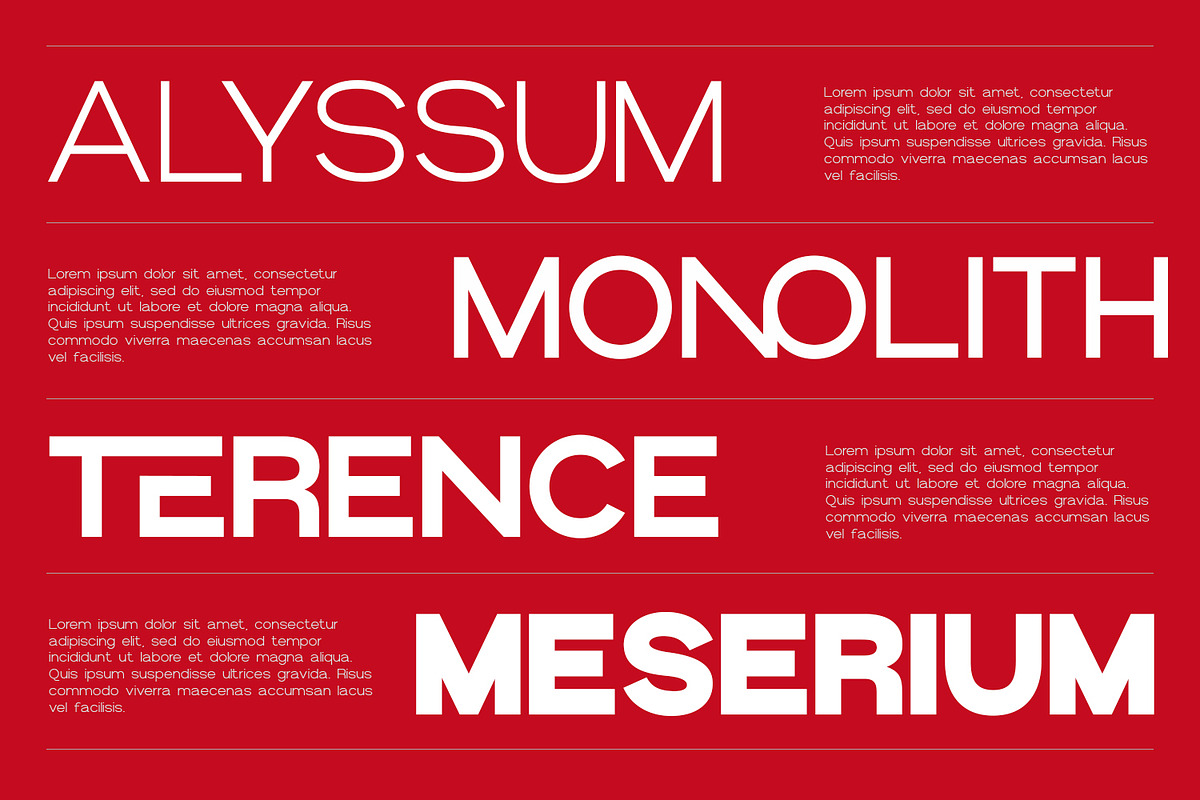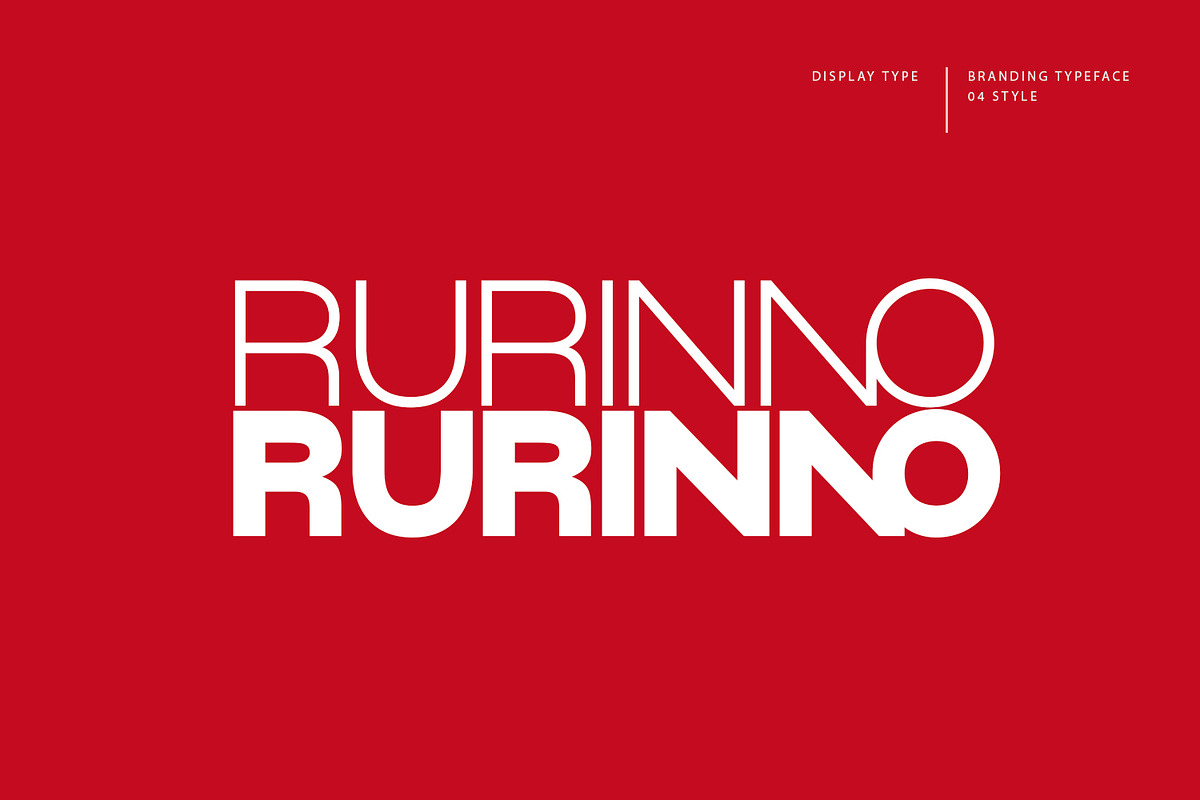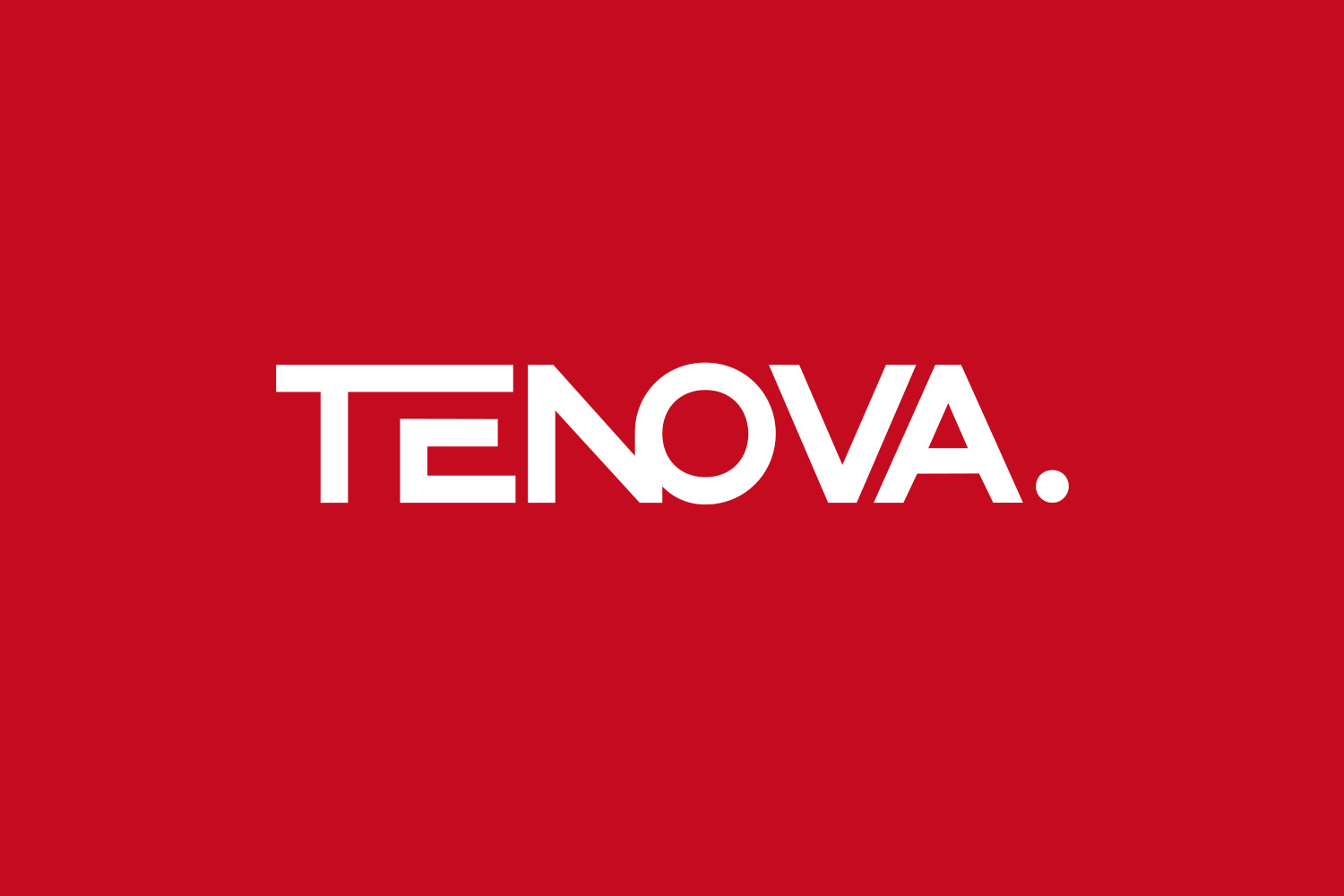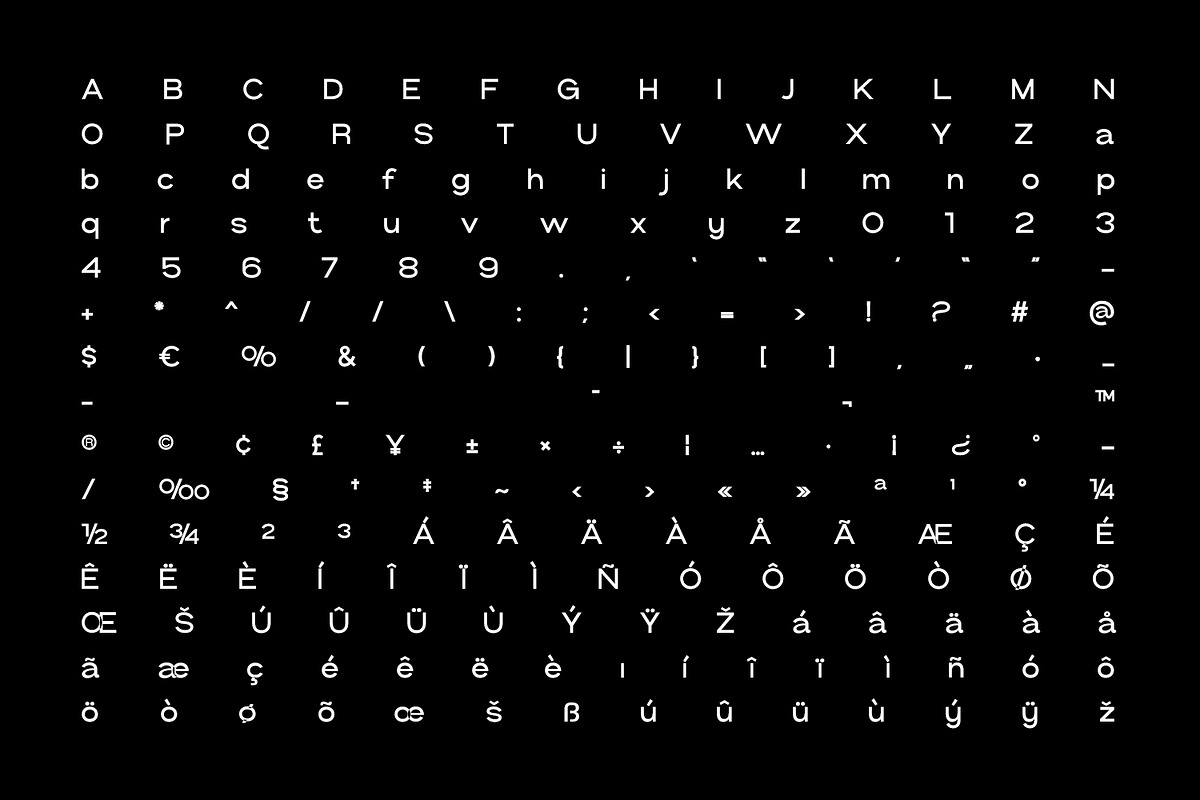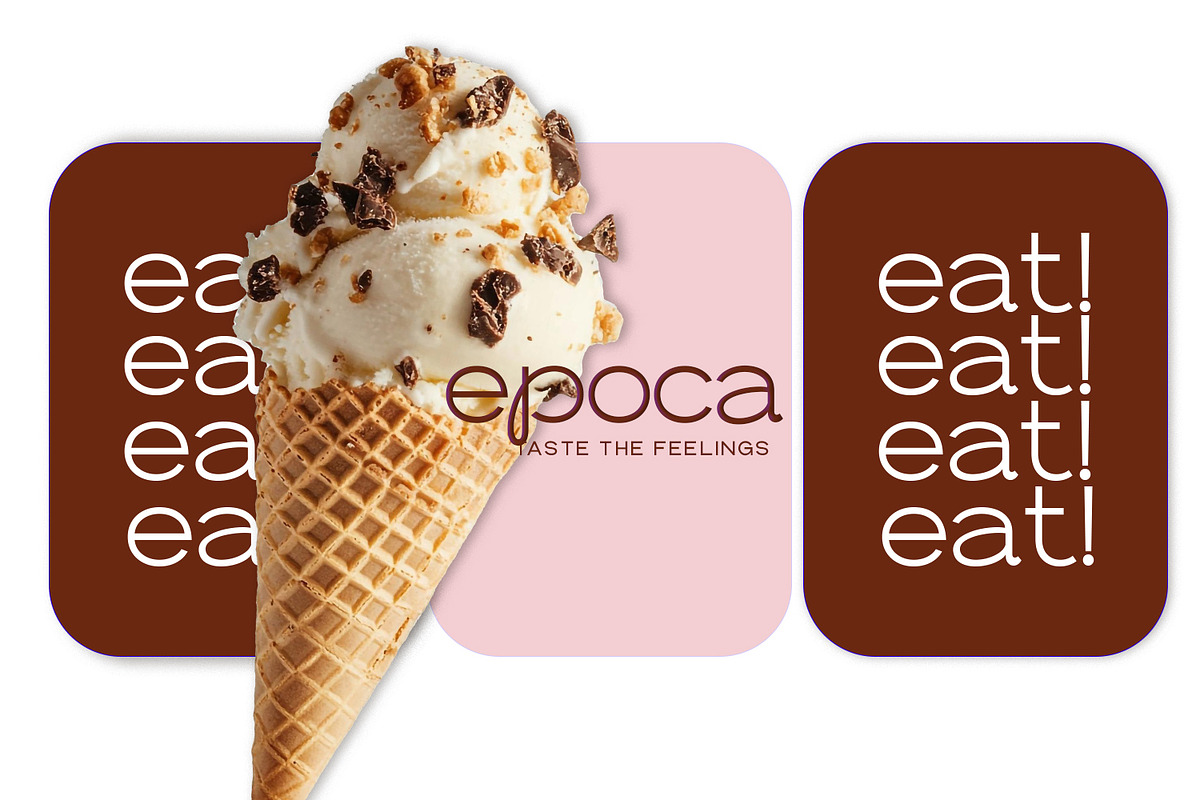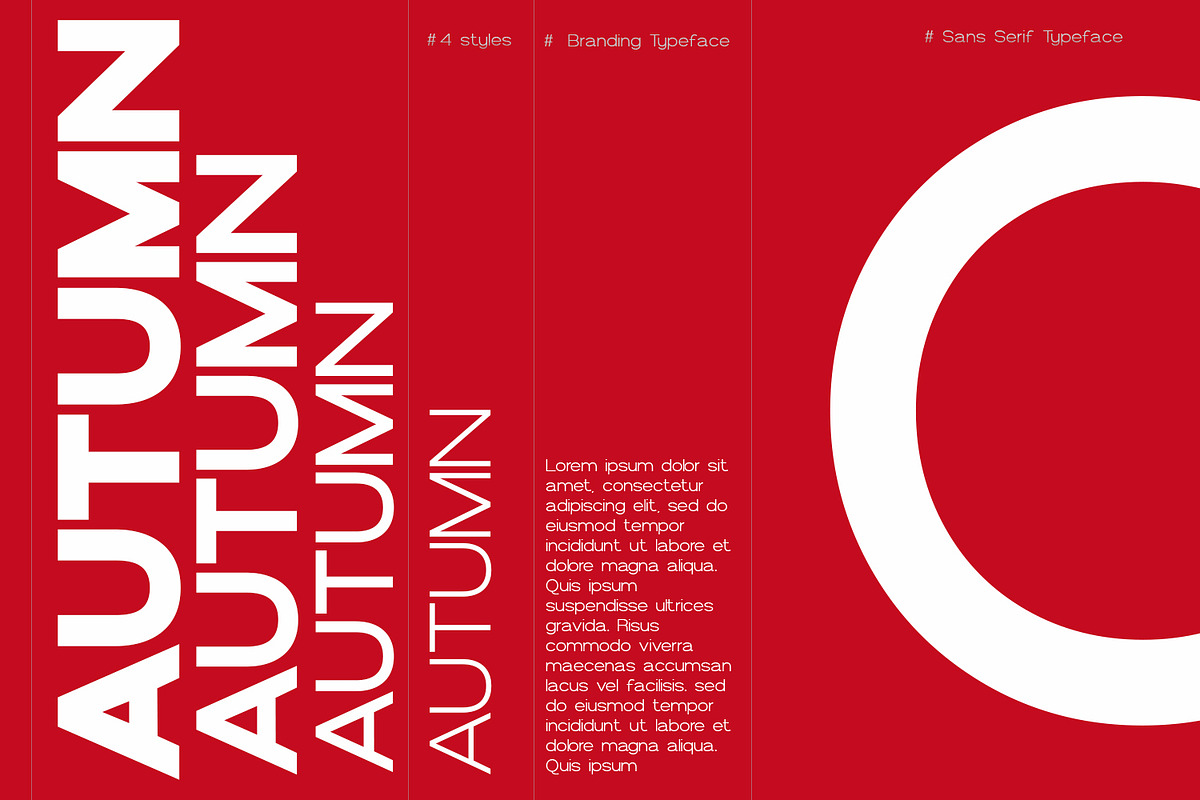
Tenova Display Typeface
Tenova Display is a Brand New Elegant Typeface with a powerful font family. It has a dependable and uncompromising style, with controlled letterforms and modern touches. It looks amazing in logos, magazines, and movies. Tenova Font would be perfect for branding, headlines, Captions, paragraphs, and posters. The various weights allow you to experiment with a wide range of applications. It’s created to make an impression without sacrificing its beauty and readability. It’s shown a clean, minimalist, warmth, quirky, yet still purposed to be versatile
The Typeface includes Four Weights - Regular, Medium, SemiBold, and Bold.